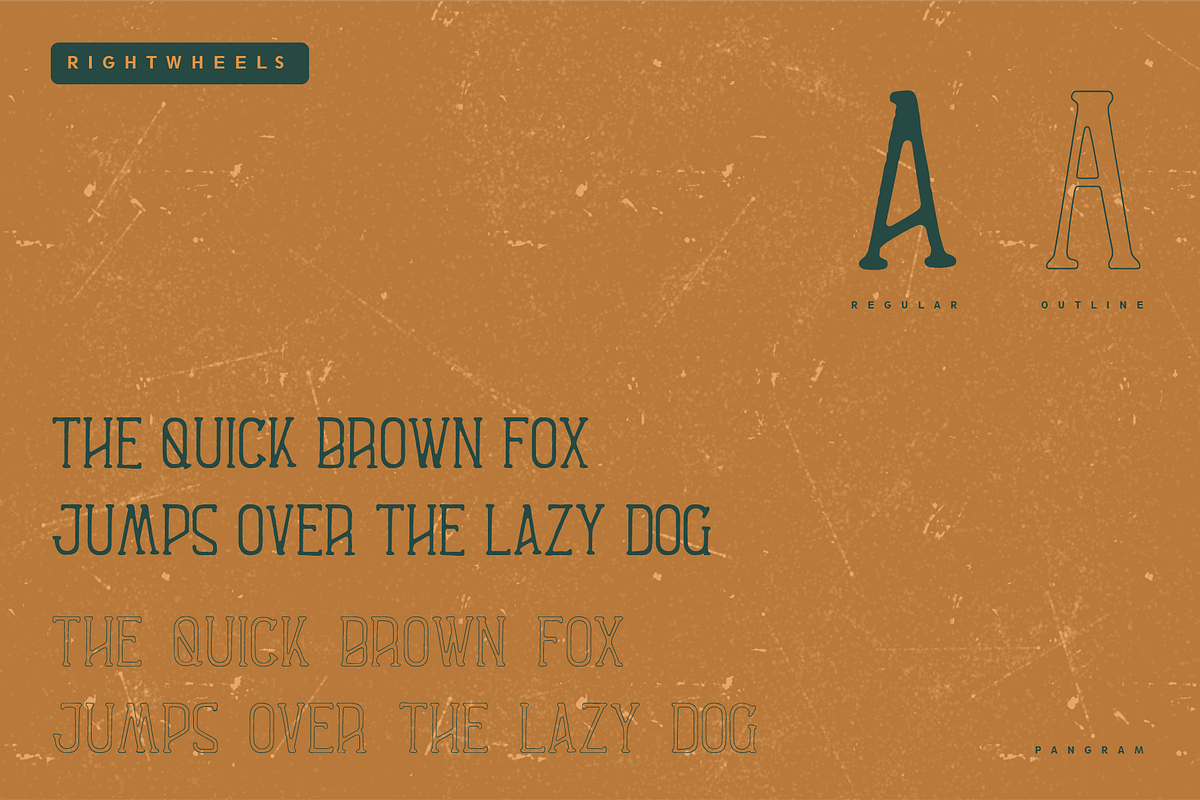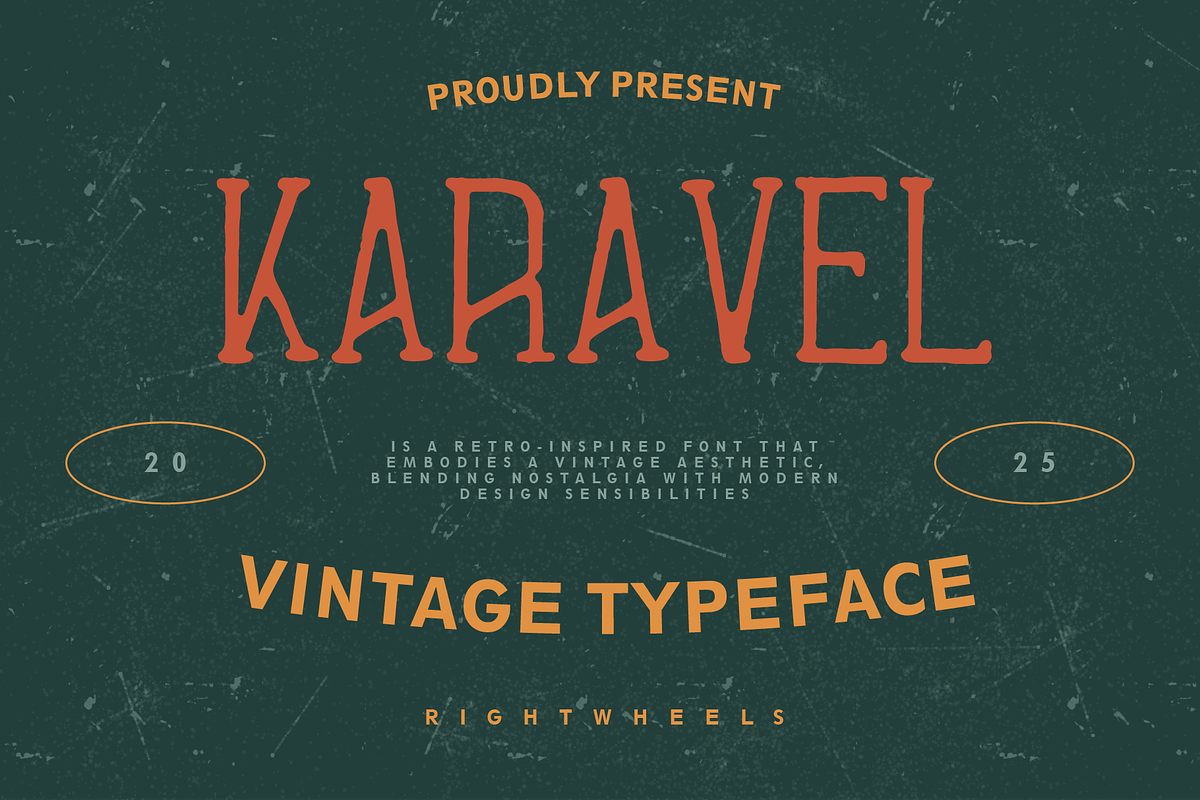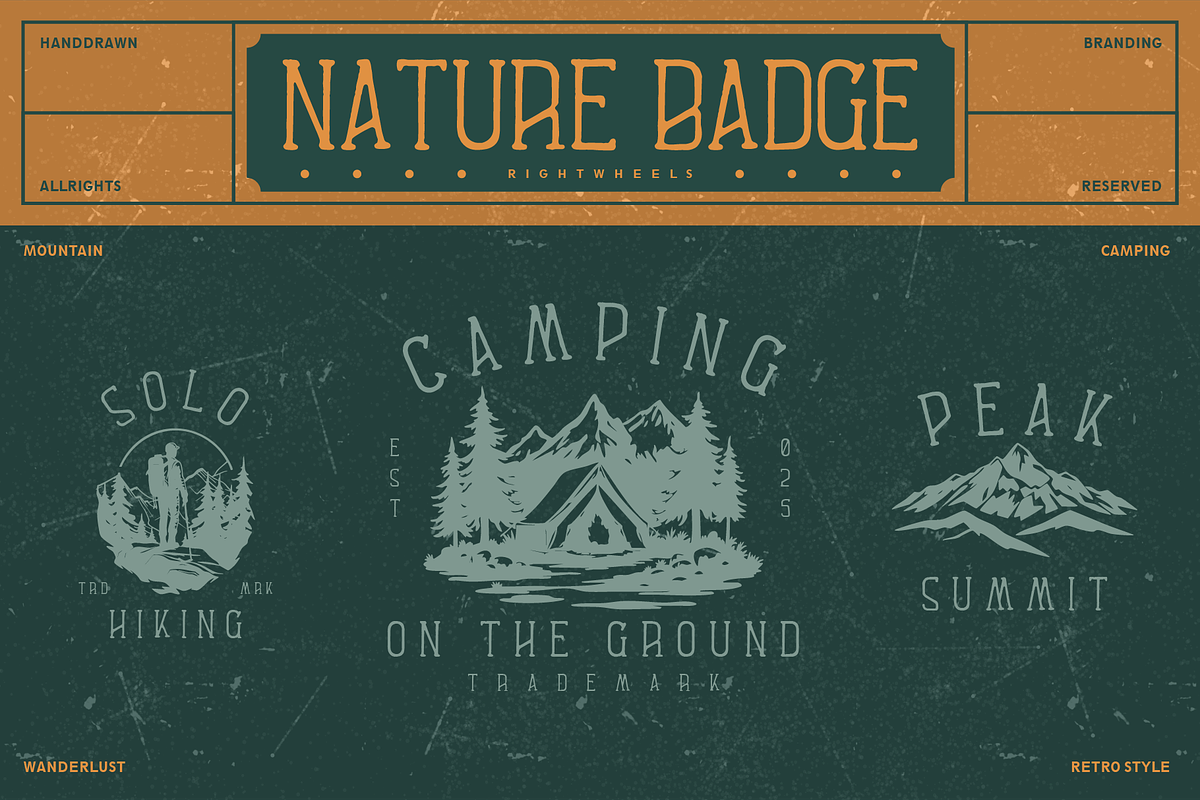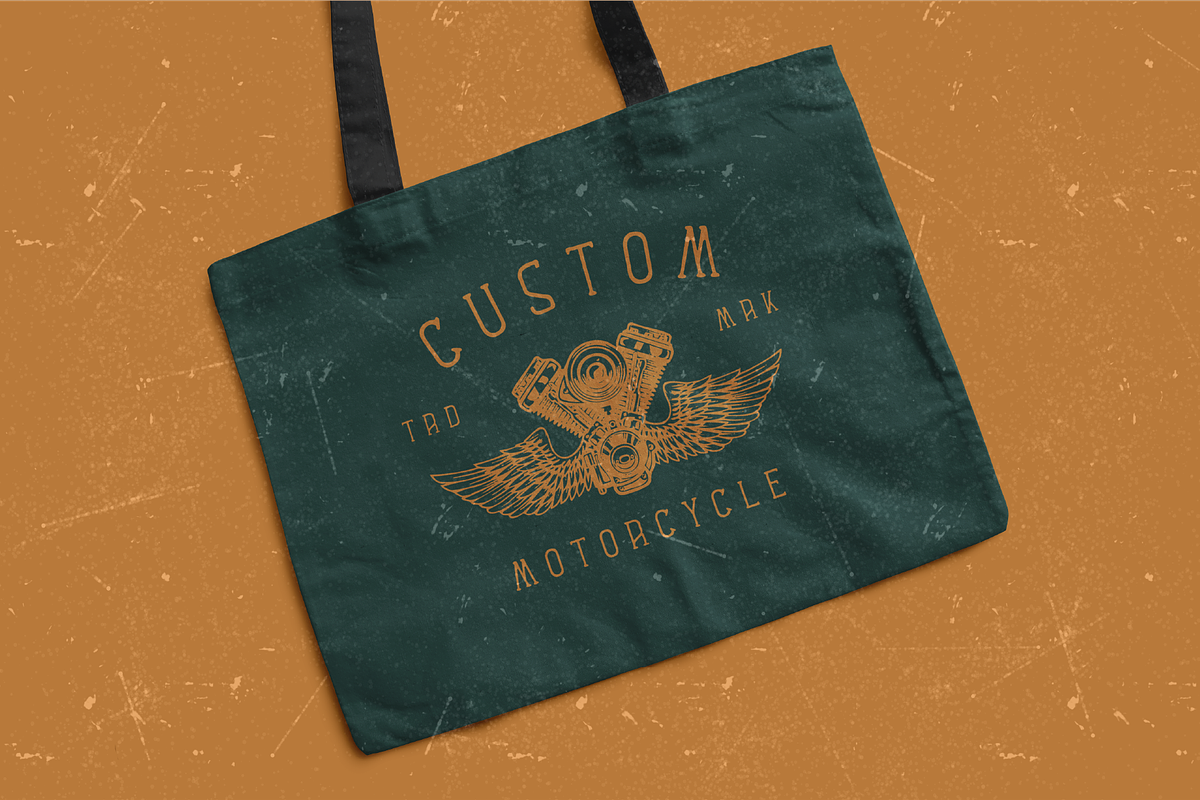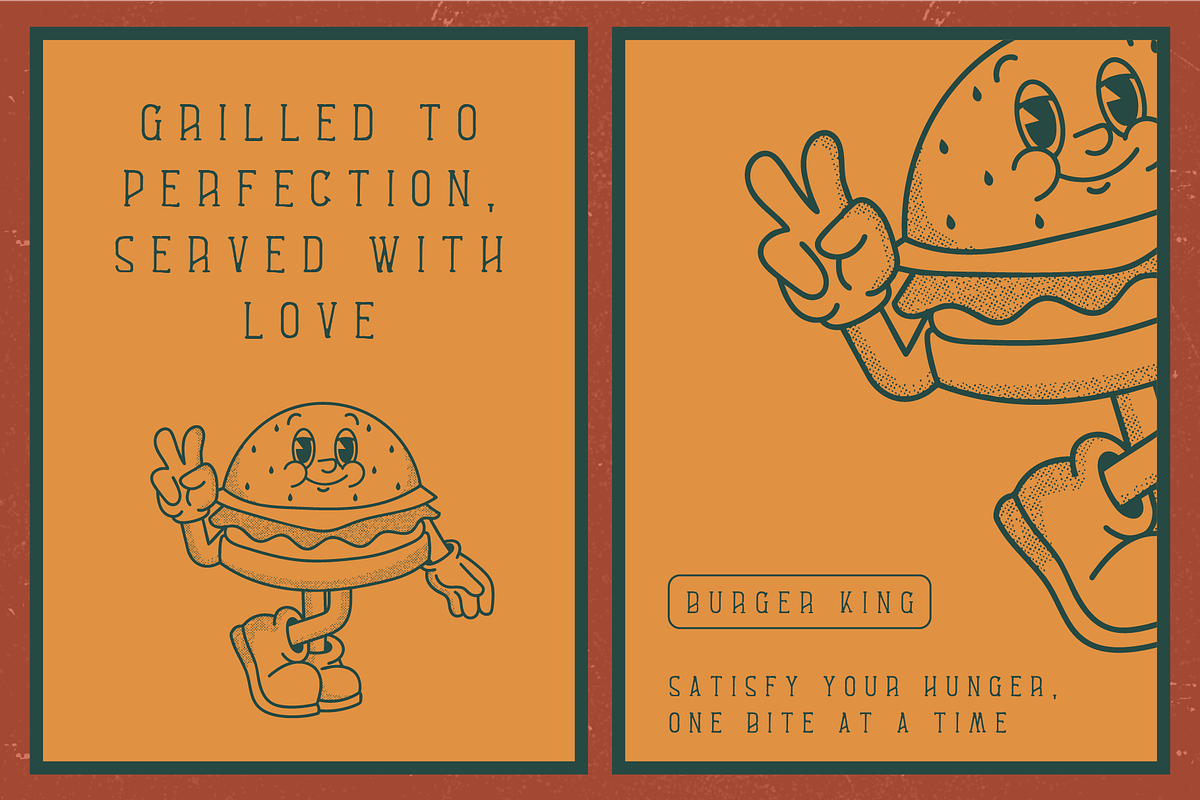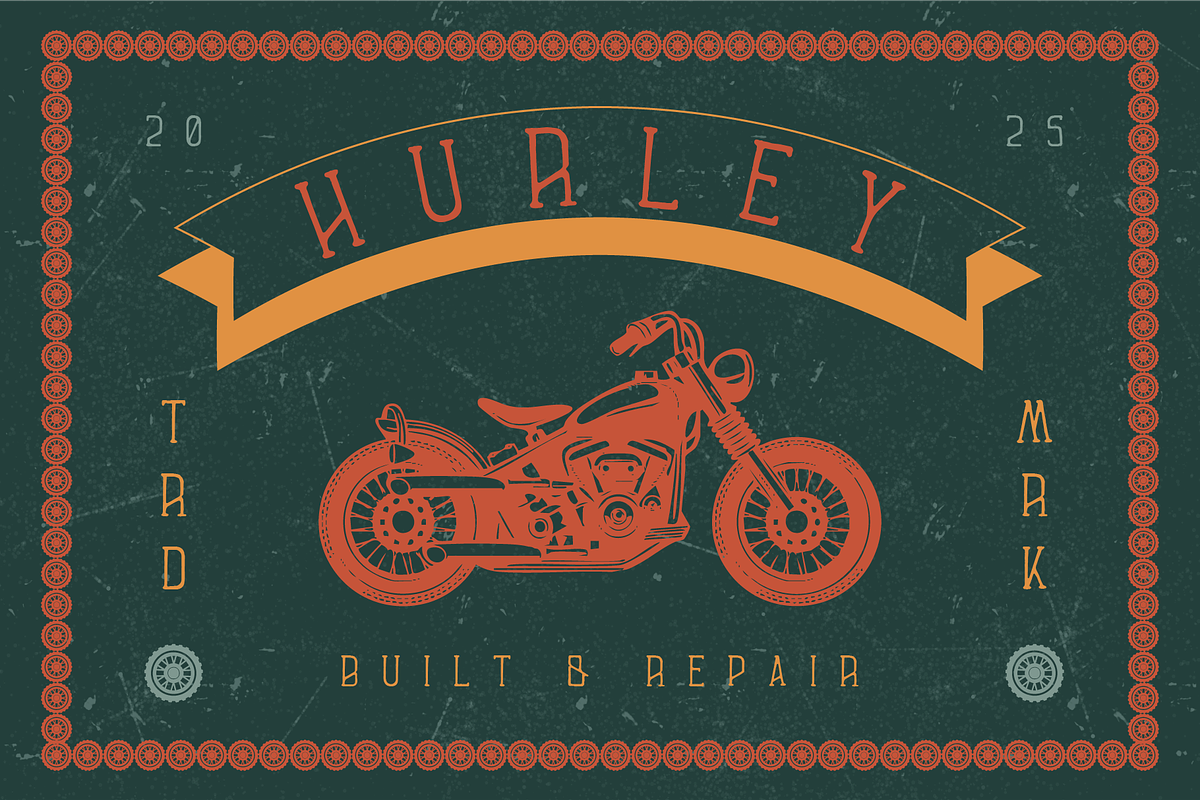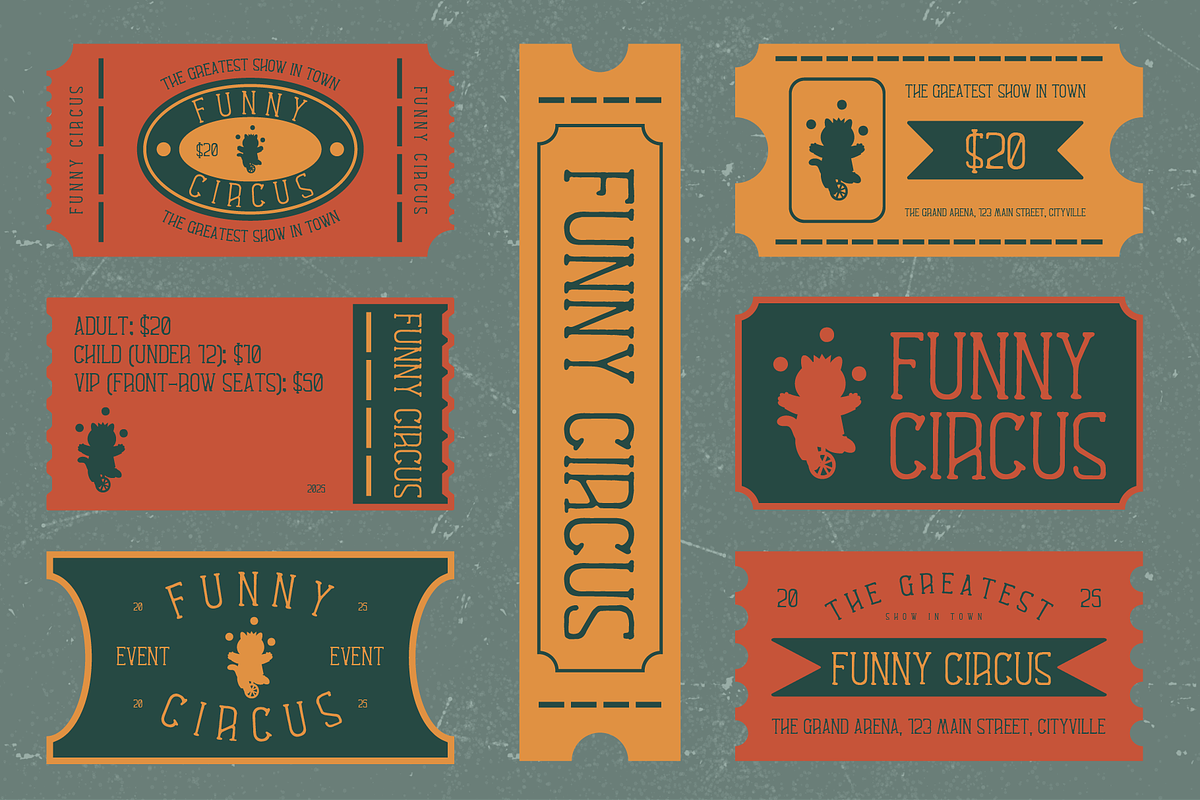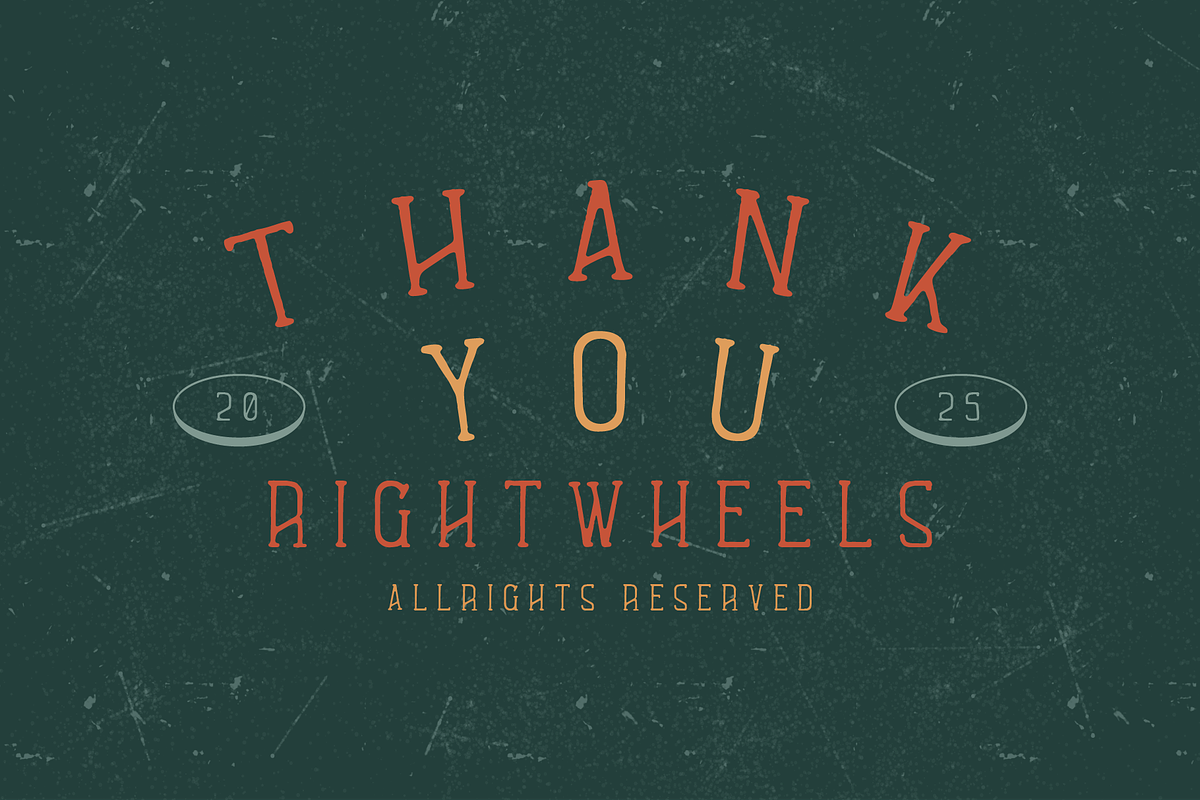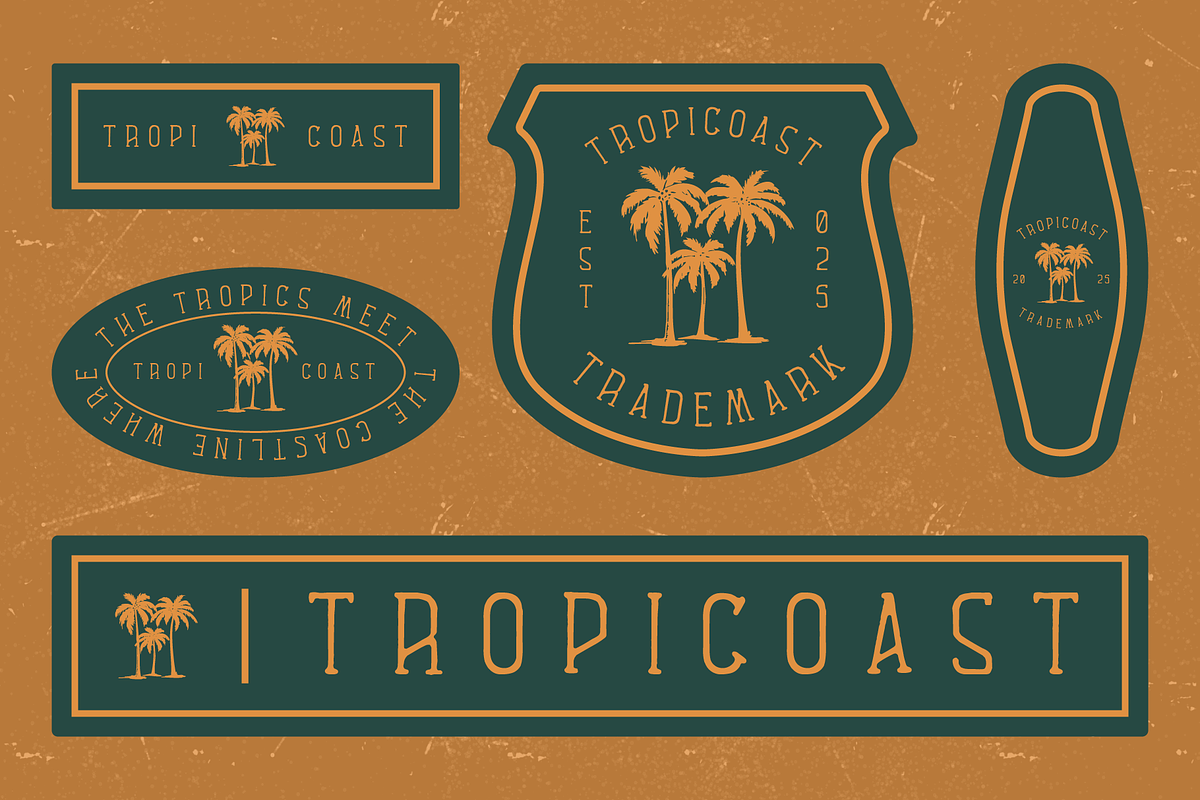
KARAVEL -Vintage Display Font
Karavel is a retro serif font that blends vintage charm with modern sophistication. With its bold yet elegant letterforms, it evokes a sense of nostalgia while maintaining a timeless appeal. Perfect for branding, logos, posters, and other design projects, Karavel captures the essence of classic typography with a touch of contemporary flair. Its distinct, sharp serifs and clean lines make it ideal for making a statement in both print and digital formats. Whether you're creating a bold headline or a refined logo, Karavel delivers a perfect balance of style and readability.